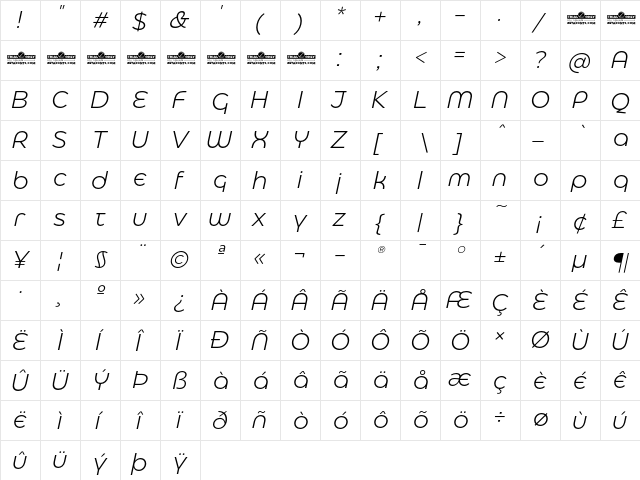
Eastman Alternate Trial Light Italic
| Foundry | Zetafonts |
| Designer | Francesco Canovaro |
Design Context for Eastman Alternate Trial Typeface
Eastman Alternate Trial takes a measured approach to typography — its balanced proportions and neutral character make it a reliable workhorse for both digital and print work. Its italic angle brings a sense of urgency and motion to the letterforms. Its slender proportions lend an understated elegance to any composition.